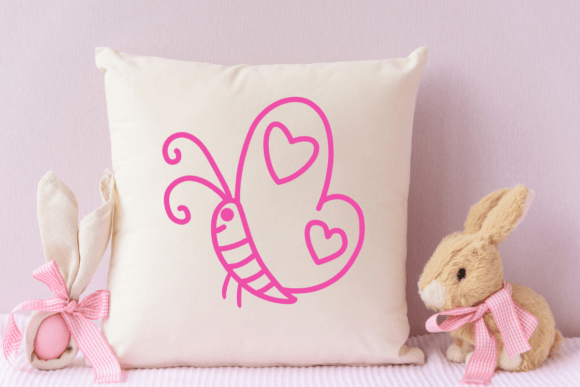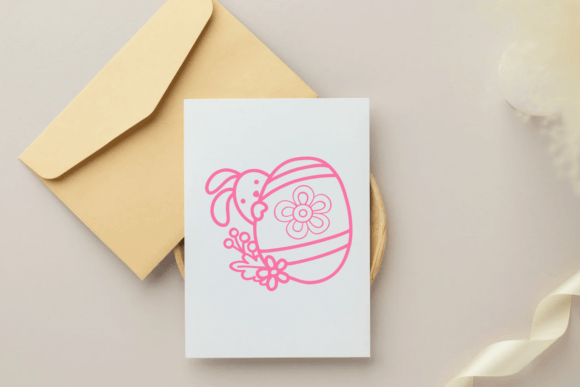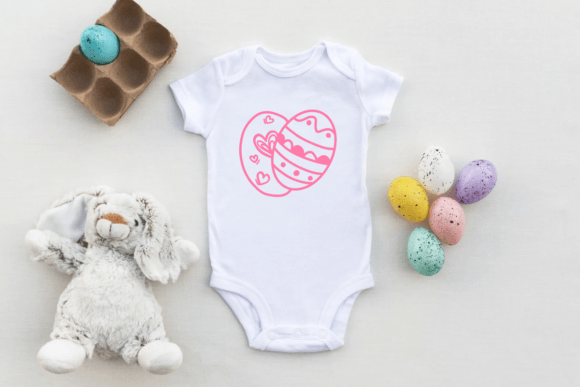
The Easter Bunny Cute Font: A Delightful Addition to Your Design Arsenal
I’ll never forget the time I was working on a wedding invitation project for a client who wanted a whimsical, Easter-themed design. As I scoured the internet for the perfect font, I stumbled upon the Easter Bunny Cute font. It was love at first sight! ✨ The adorable bunny illustrations and playful vibe instantly captured the essence of the holiday. In this article, I’ll share my experience with this delightful dingbats font and explore its uses, features, and alternatives.
• ✨ The Easter Bunny Cute font is perfect for Easter-themed projects, but its versatility extends to various creative endeavors, such as wedding invitations, DIY crafts, and decorations.
• ✅ The font’s dingbats style offers a wide range of illustrations, from bunnies and eggs to flowers and more.
• 🎨 The playful and whimsical vibe of the font adds a touch of personality to any design.
While the Easter Bunny Cute font is an excellent addition to any design project, there are a few things to keep in mind:
• ⚠️ The font’s dingbats style might not be suitable for body text or lengthy paragraphs.
• 🤔 Some characters may not be available as glyphs, limiting the font’s use in certain design applications.
The Easter Bunny Cute font was designed with the intention of capturing the whimsical and playful spirit of Easter. The designer, inspired by the joy and excitement of the holiday, created a font that would bring a touch of personality to any design project. With its adorable bunny illustrations and festive vibe, the Easter Bunny Cute font is sure to delight designers and crafters alike.
Q: What type of projects is the Easter Bunny Cute font suitable for?
A: The Easter Bunny Cute font is perfect for Easter-themed projects, wedding invitations, DIY crafts, decorations, logos, and many other creative endeavors.
Q: Is the Easter Bunny Cute font available in different styles or variations?
A: The Easter Bunny Cute font is a single style font, but it offers a wide range of glyphs and illustrations to enhance your designs.